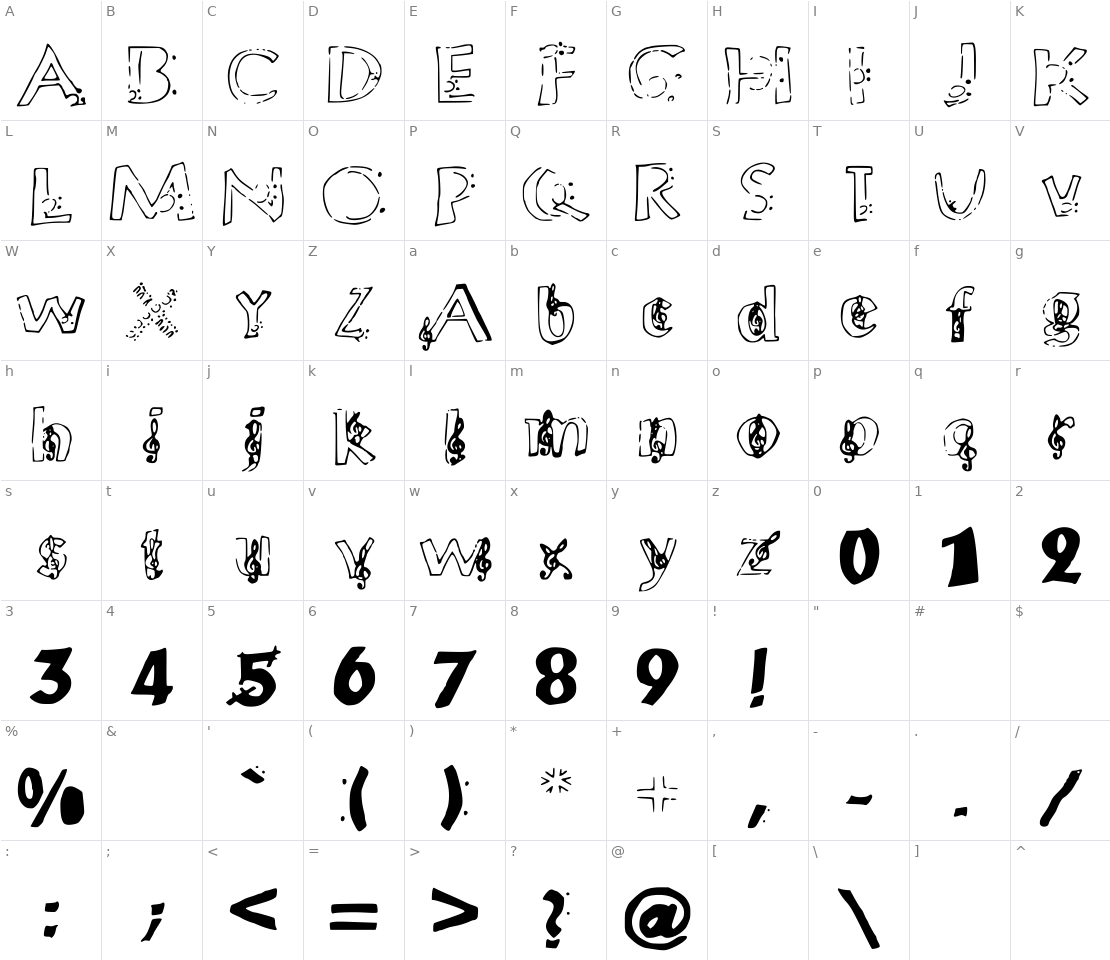
Chloes Music
by Chloe Perkins
Chloes Music is a playful novelty face by Chloe Perkins that weaves musical notes and staff-line motifs into its letterforms, giving each character a distinctly melodic personality. The whimsical, decorative shapes keep things lighthearted and fun, making it a natural pick for music event posters, recital programs, and children's music branding where the theme needs to be obvious at a glance. Strictly a headline face, since the musical details get lost at smaller sizes.